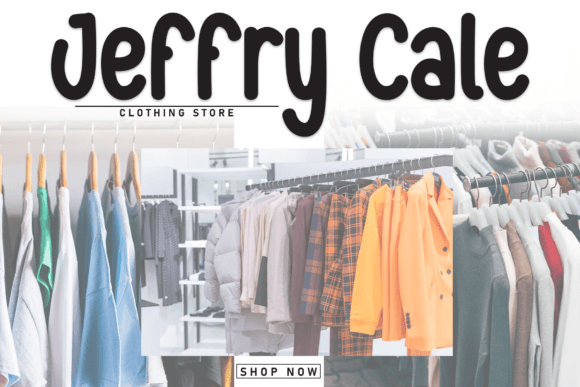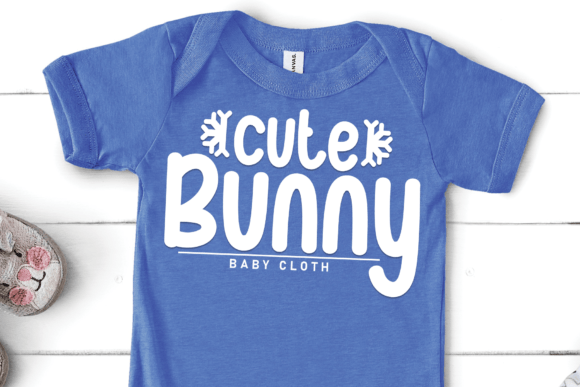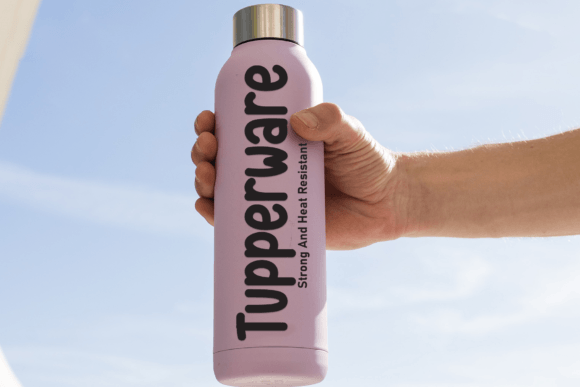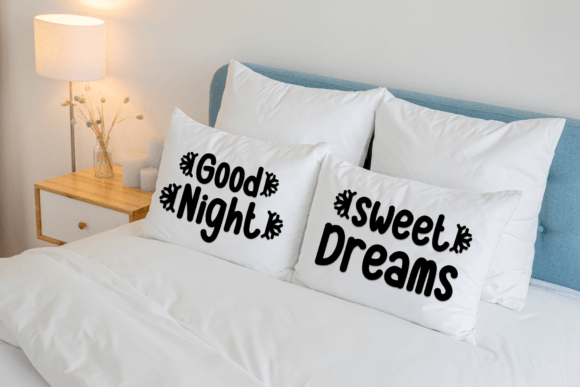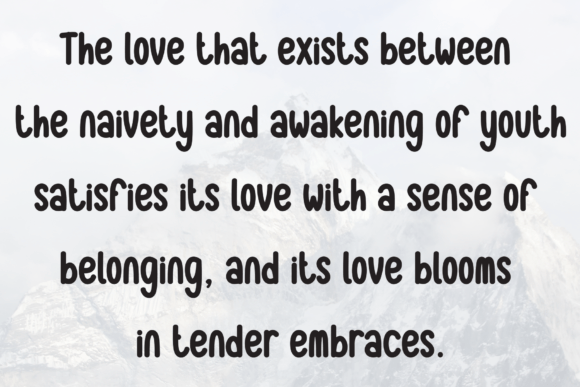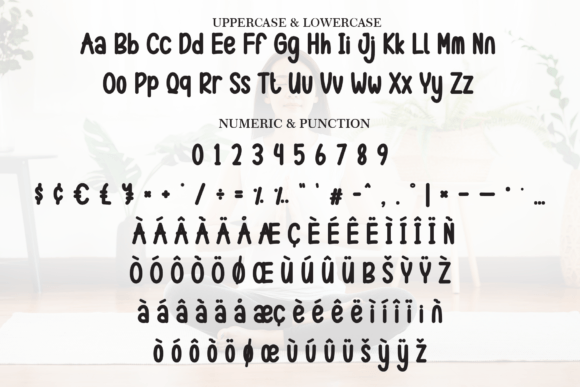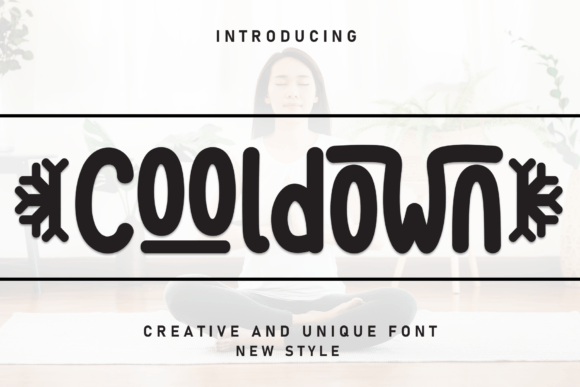
Introducing Cooldown Font: The Sweet and Friendly Handwritten Display Font
Are you looking for a font that can add a touch of warmth and personality to your designs? Look no further than Cooldown Font, a sweet and friendly handwritten display font that’s perfect for creating eye-catching and engaging content. In this article, we’ll take a closer look at Cooldown Font, its features, and how you can use it to elevate your designs.
What is Cooldown Font?
Cooldown Font is a beautifully crafted handwritten display font that’s designed to bring a touch of fun and playfulness to your designs. With its sweet and friendly appearance, this font is ideal for writing wedding invitations, cards, or any other design that might need a fun touch. Whether you’re a designer, crafter, or DIY enthusiast, Cooldown Font is a versatile and easy-to-use font that can help you create stunning designs.
Key Features of Cooldown Font
So, what makes Cooldown Font so special? Here are some of its key features:
- Handwritten appearance: Cooldown Font has a beautiful handwritten appearance that’s perfect for creating personal and engaging content.
- Sweet and friendly: This font has a warm and friendly tone that’s ideal for designs that require a touch of personality.
- Cute and fun: Cooldown Font is perfect for designs that require a playful and fun touch, such as wedding invitations, birthday cards, and more.
Use Cases for Cooldown Font
Cooldown Font is a versatile font that can be used in a variety of design projects. Here are some use cases to get you started:
- Wedding invitations: Add a touch of romance and personality to your wedding invitations with Cooldown Font.
- Cards and stationery: Create beautiful and personalized cards and stationery with this font.
- DIY projects: Cooldown Font is perfect for DIY projects, such as crafting, scrapbooking, and more.
- Digital designs: Use this font in your digital designs, such as social media graphics, blog posts, and more.
Tips for Using Cooldown Font
Here are some tips for using Cooldown Font in your designs:
- Pair with other fonts: Cooldown Font pairs well with other fonts, such as serif and sans-serif fonts. Experiment with different combinations to find the perfect look.
- Use in headlines and titles: This font is perfect for headlines and titles, where you want to grab the attention of your audience.
- Add a personal touch: Cooldown Font is perfect for adding a personal touch to your designs. Use it to create personalized messages, quotes, and more.
In conclusion, Cooldown Font is a sweet and friendly handwritten display font that’s perfect for designers and crafters who want to add a touch of personality to their designs. With its easy-to-use and versatile nature, this font is ideal for a variety of design projects, from wedding invitations to digital designs. So why not give Cooldown Font a try and see how it can elevate your designs?